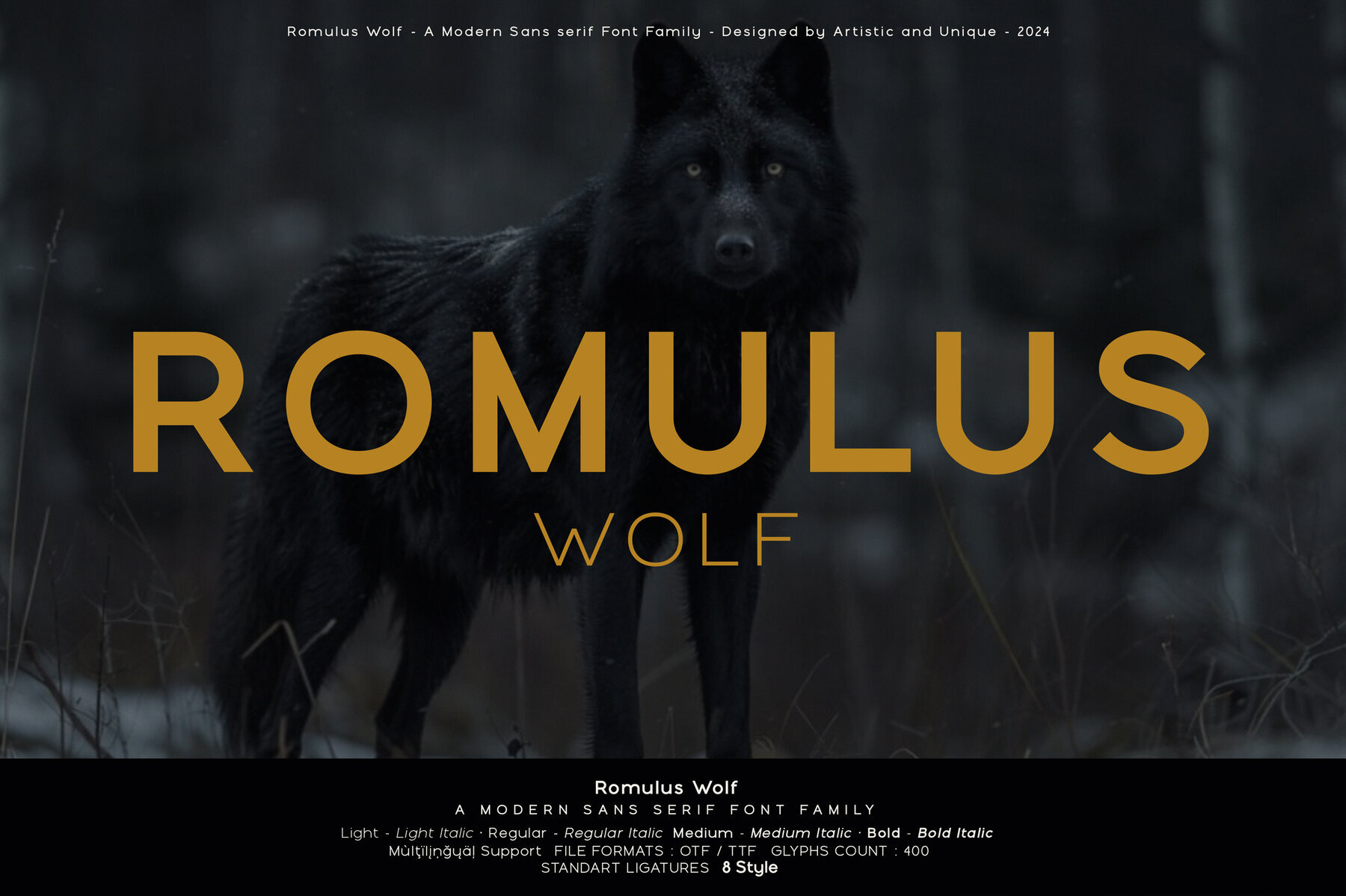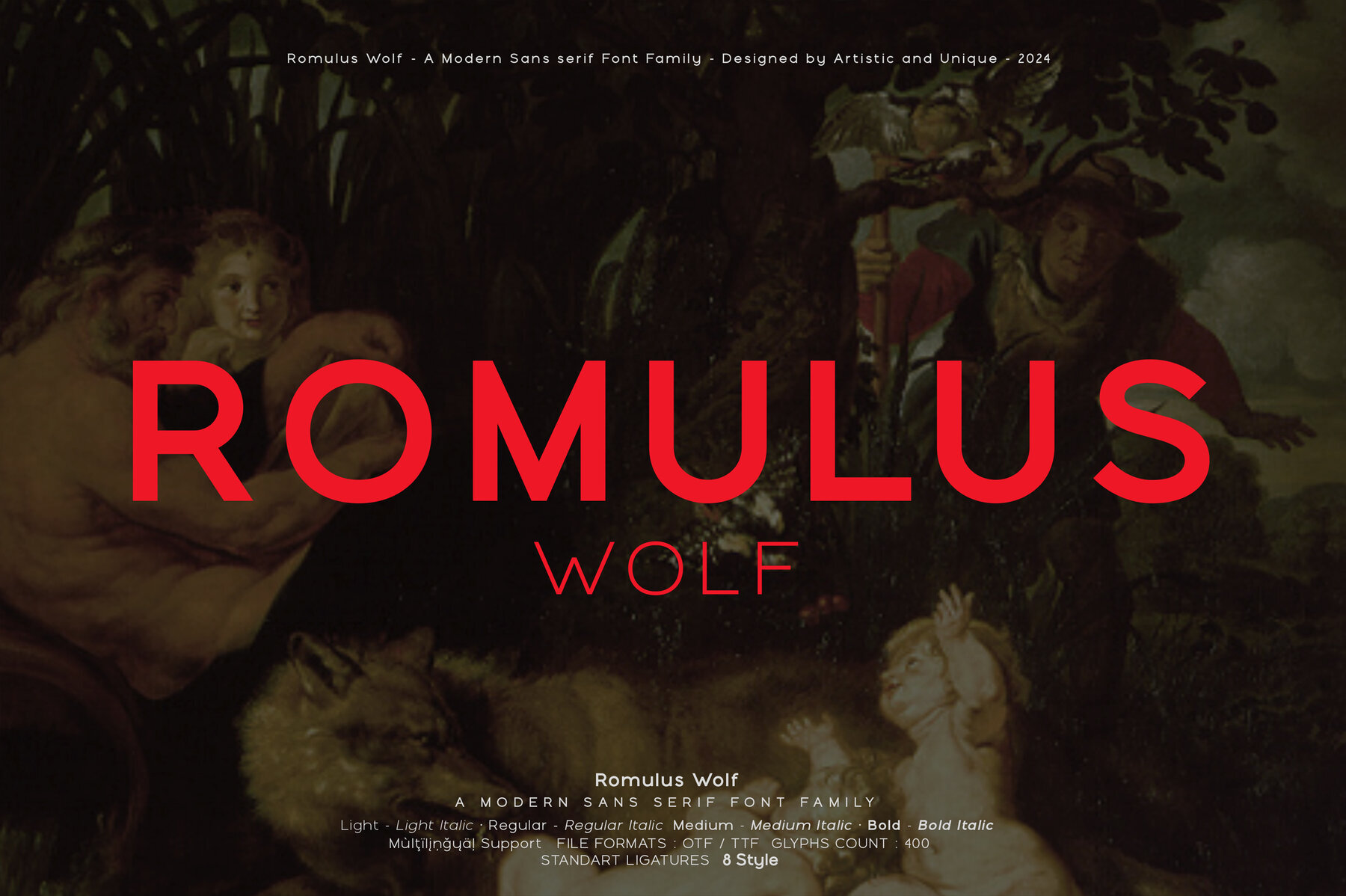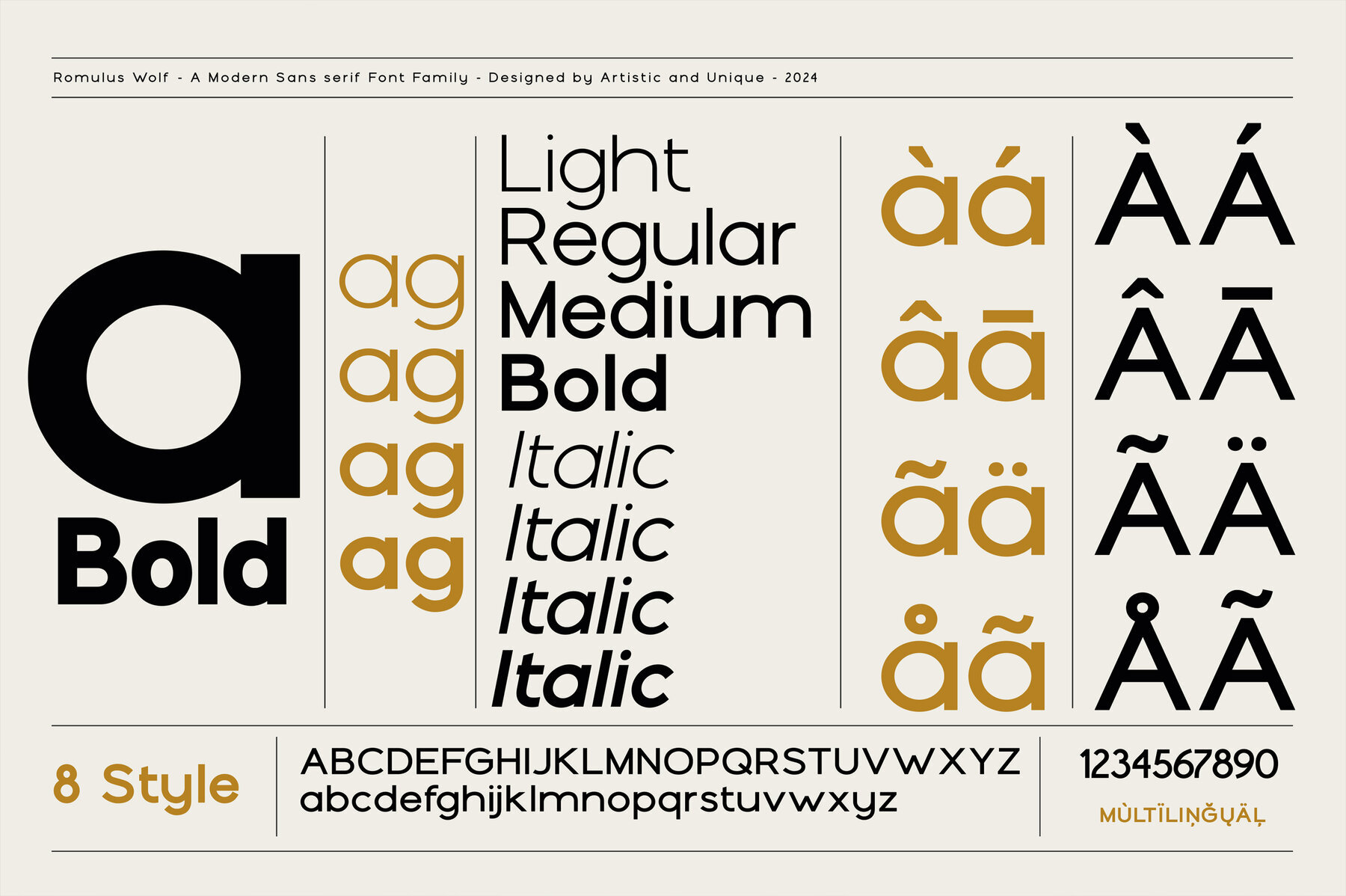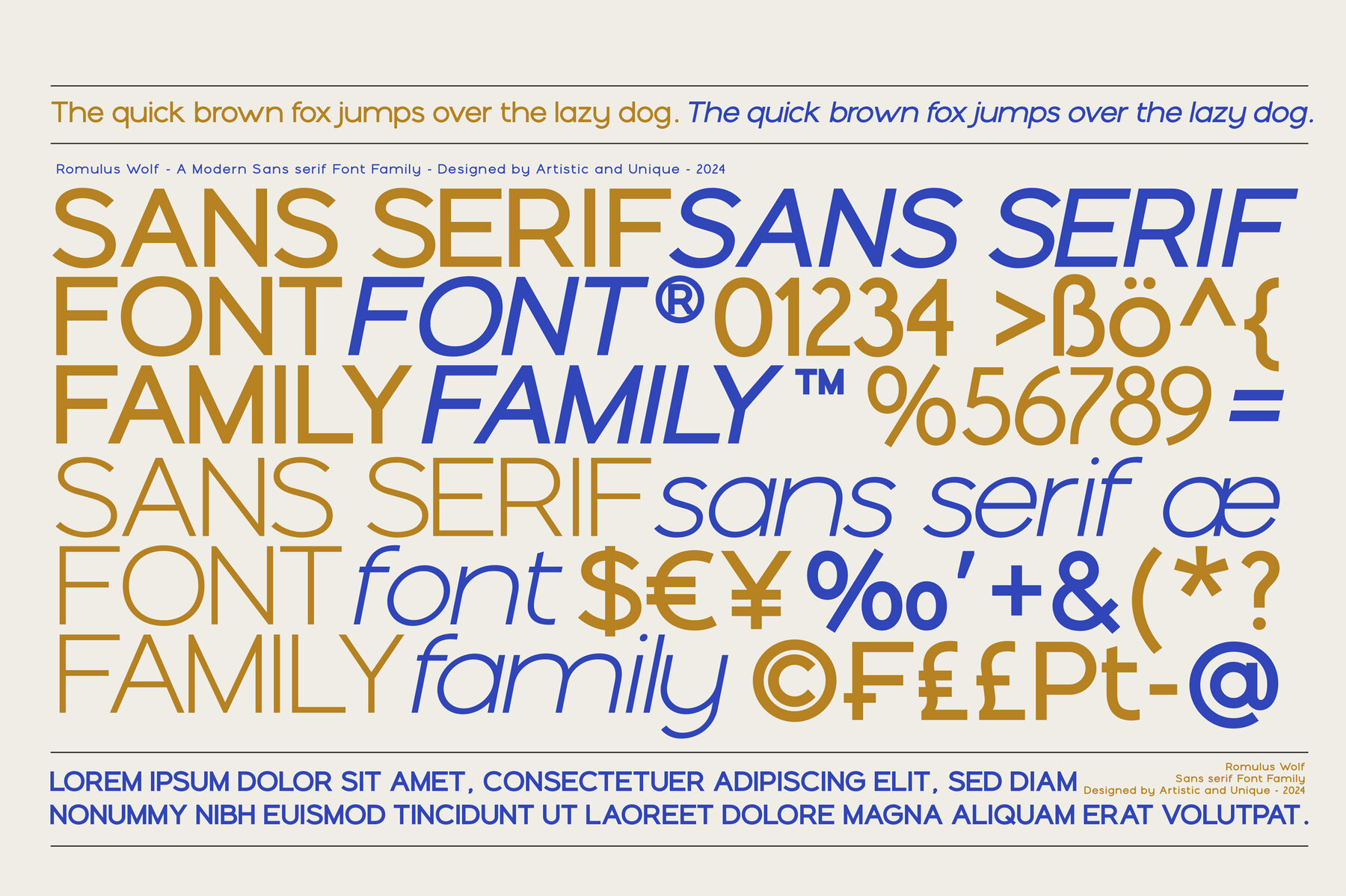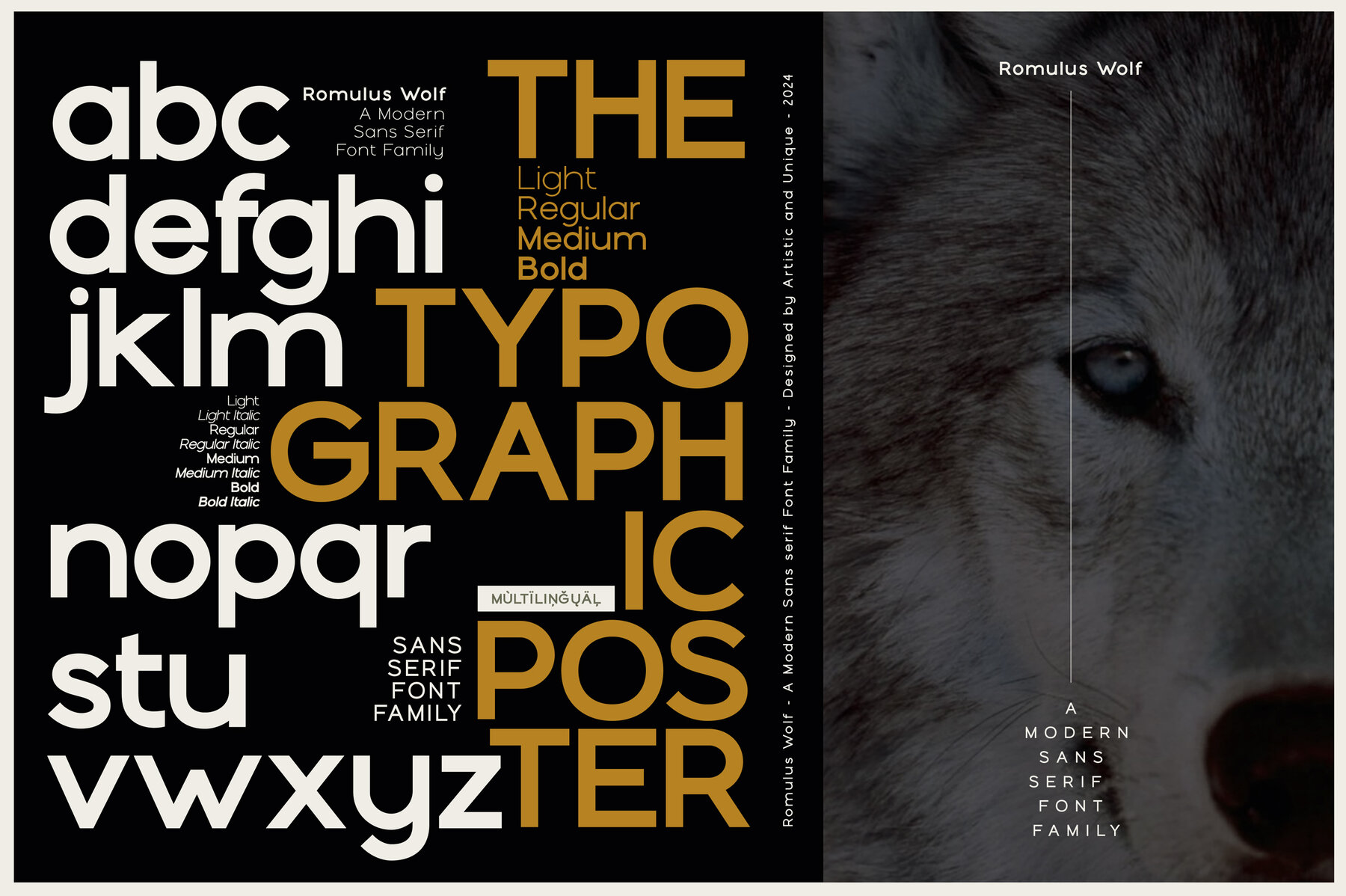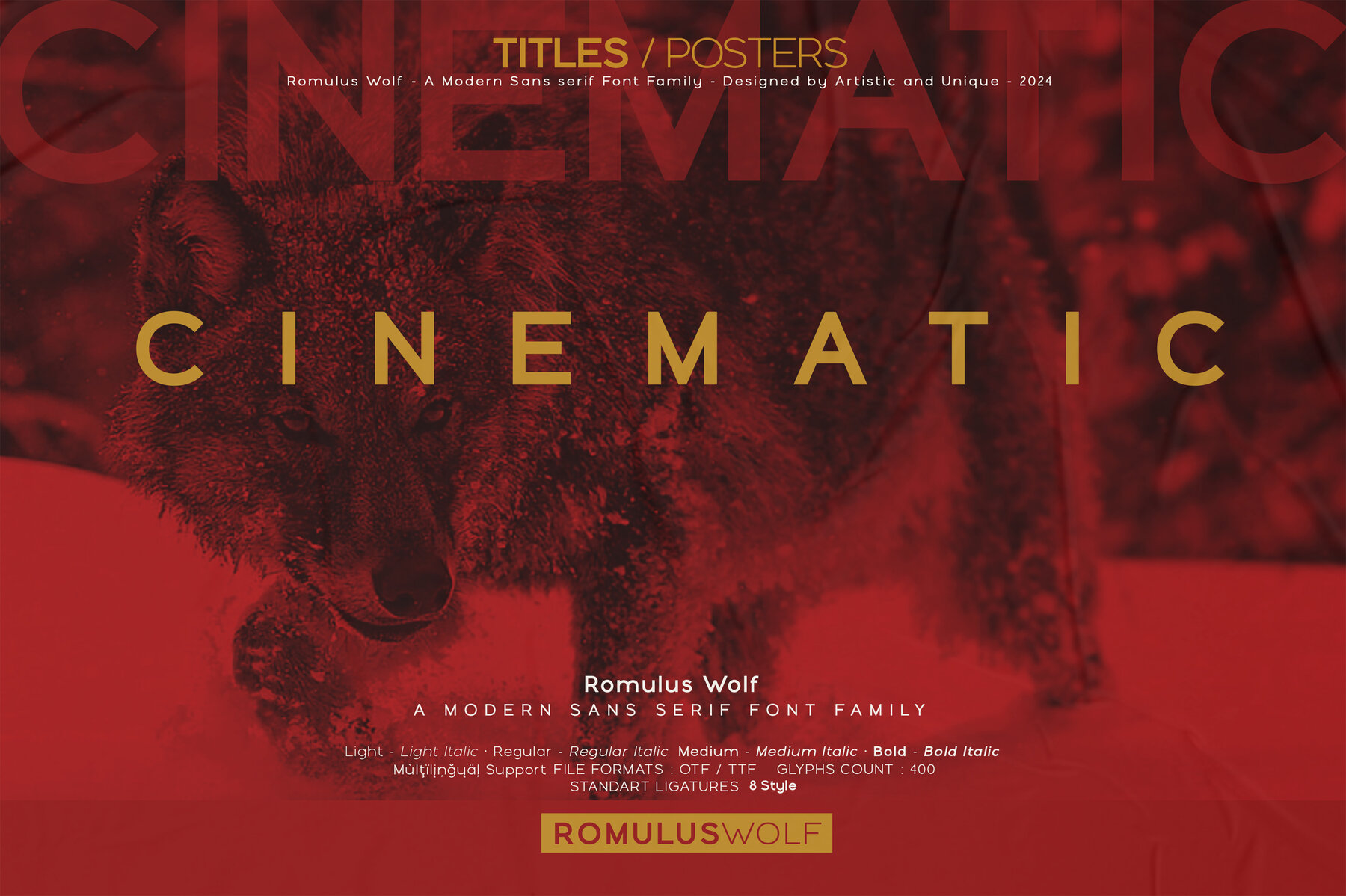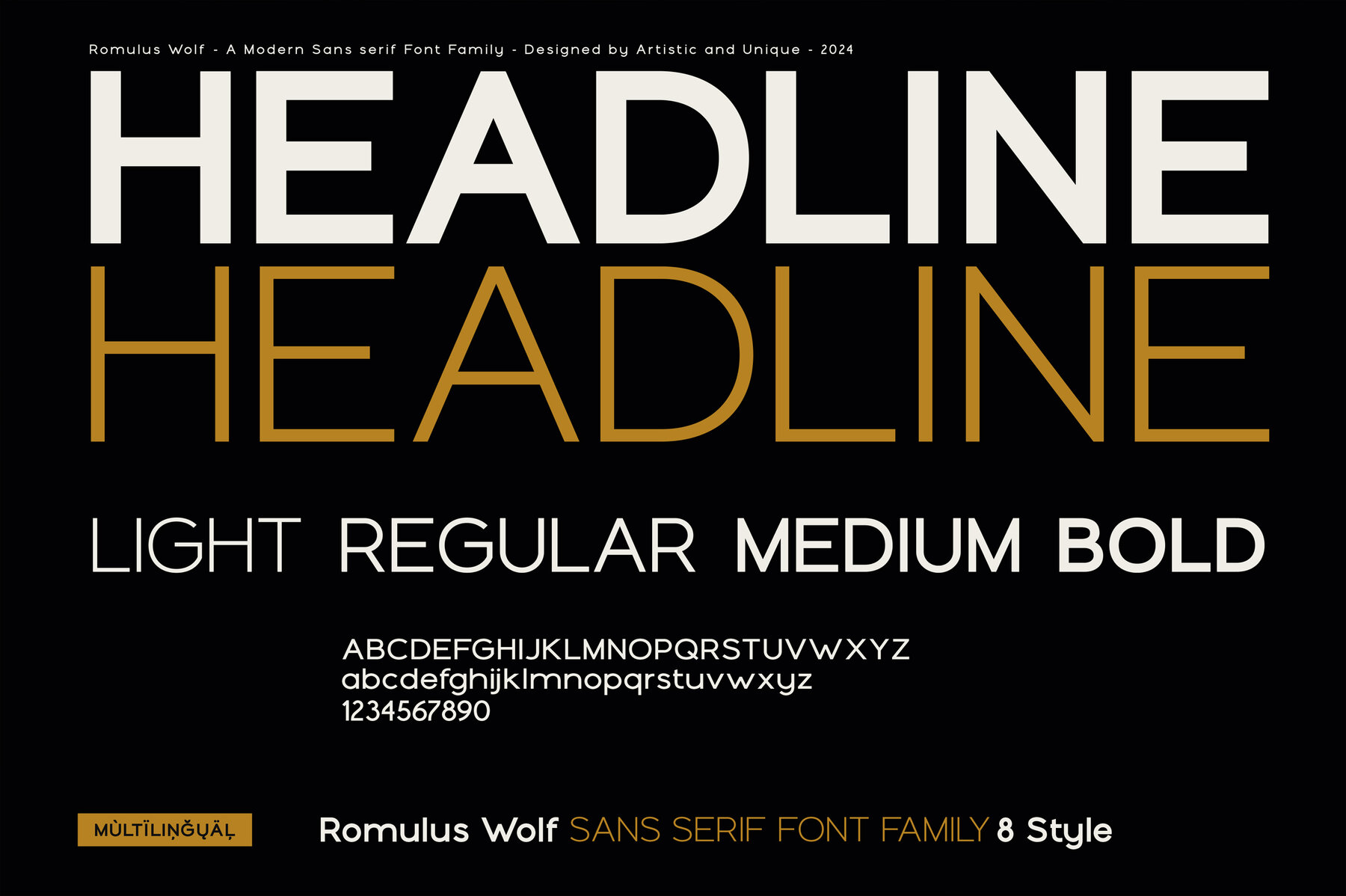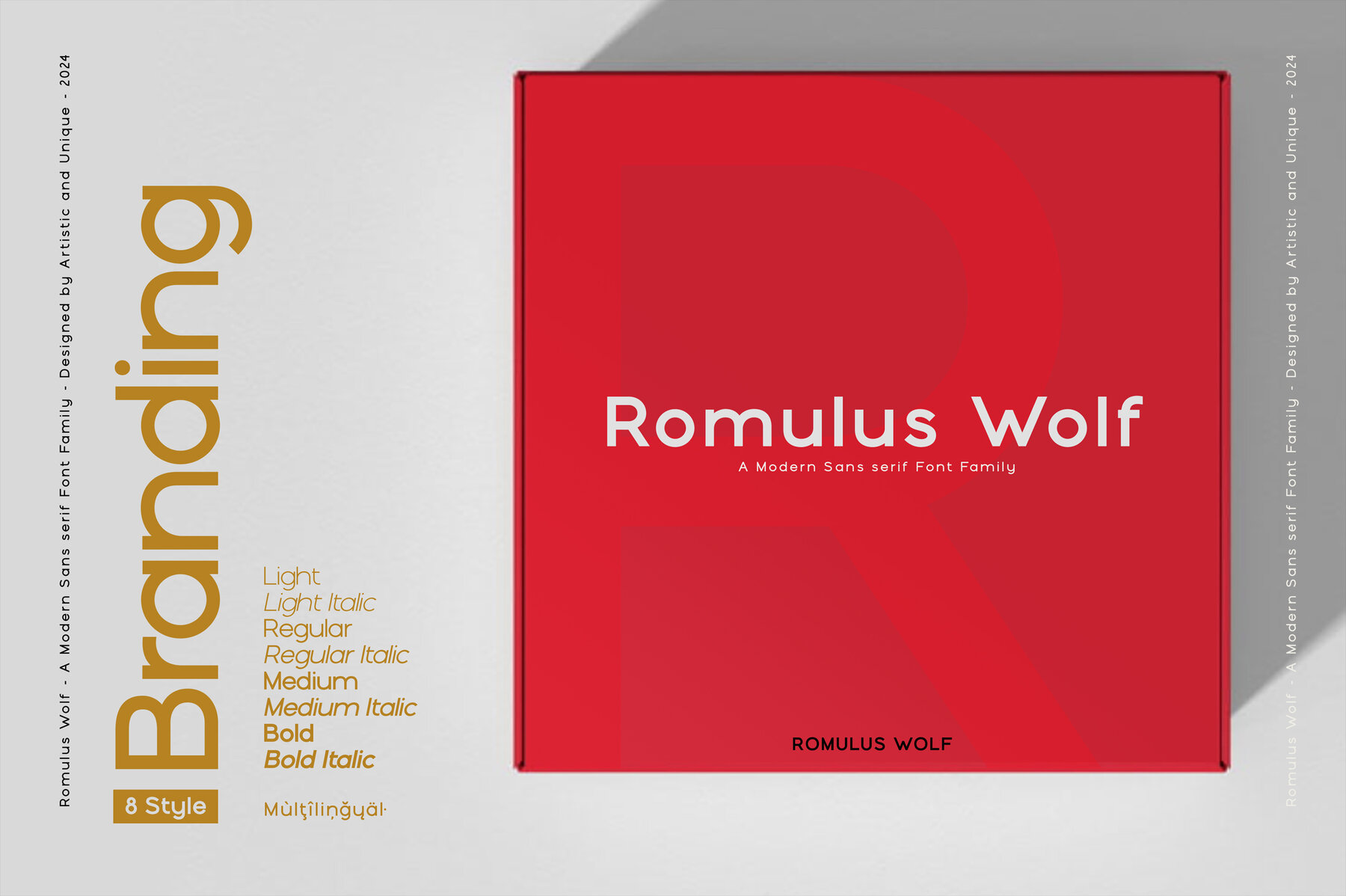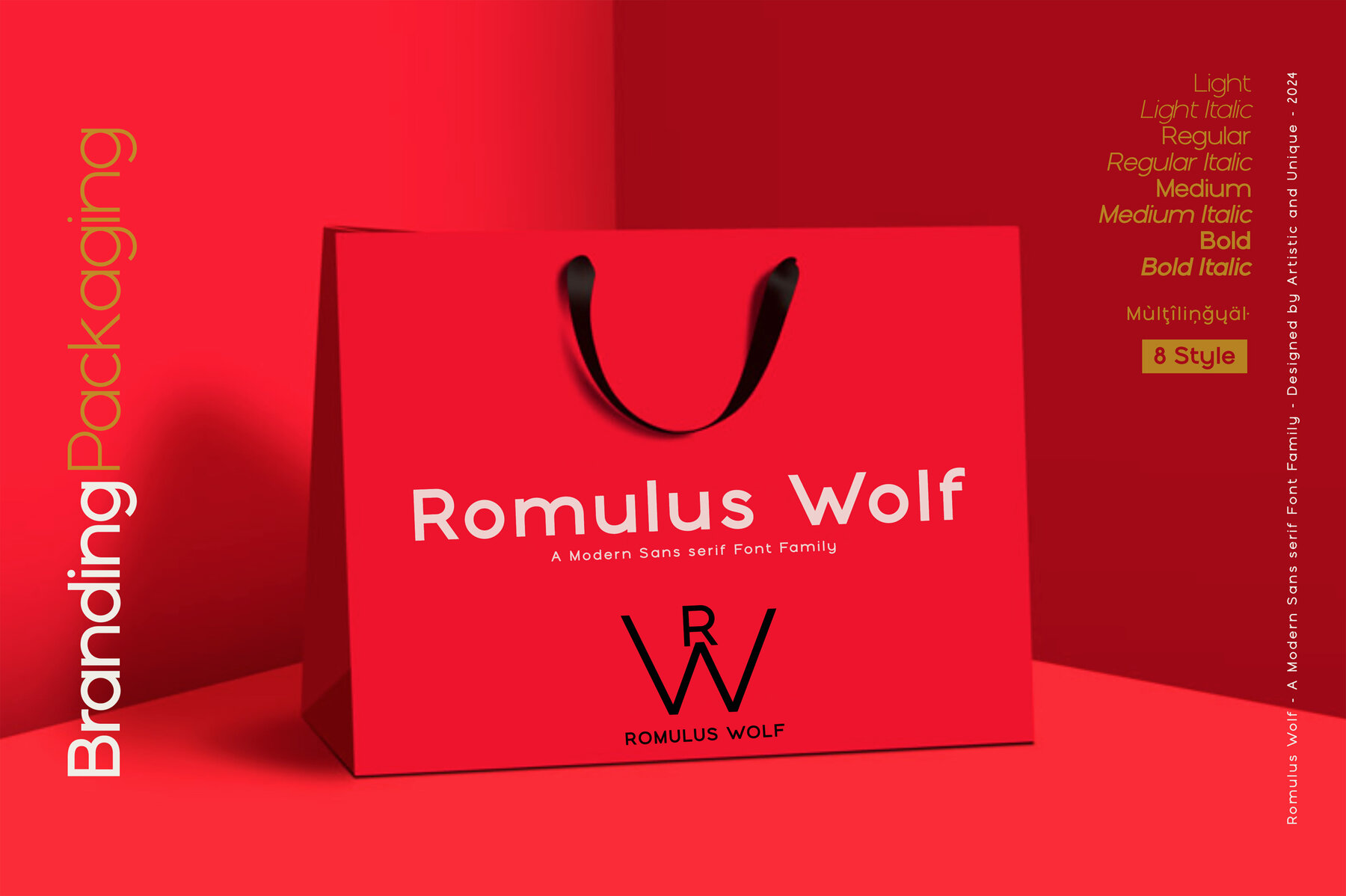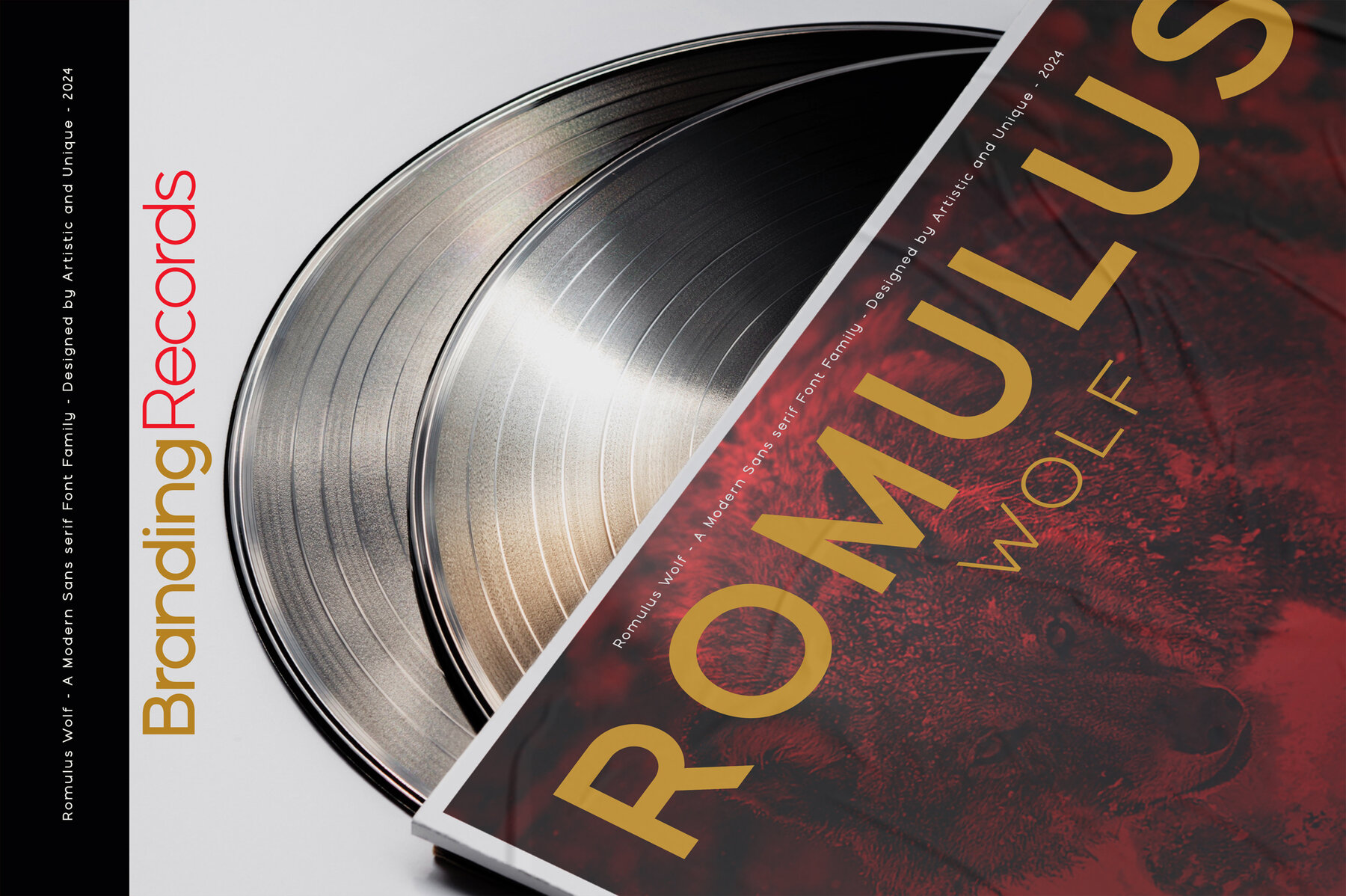
Romulus Wolf Font
Romulus Wolf is an exceptional sans serif font family, offering a modern geometric design that caters to a variety of creative applications. This family comprises eight different styles, all supporting multilingual usage, making it a versatile asset for designers around the globe. Named after Romulus, a legendary figure in Roman mythology credited with founding Rome, this font draws inspiration from tales of history and power. Its modern geometric form and sans serif simplicity make it ideal for a wide array of applications, including books, magazines, editorials, websites, movie titles, posters, logos, branding, and advertising. Whether for modern projects or classic designs, Romulus Wolf asserts itself as a reliable choice for any creative pursuit.Romulus Wolf: Geometric Sans Serif with Multilingual Support